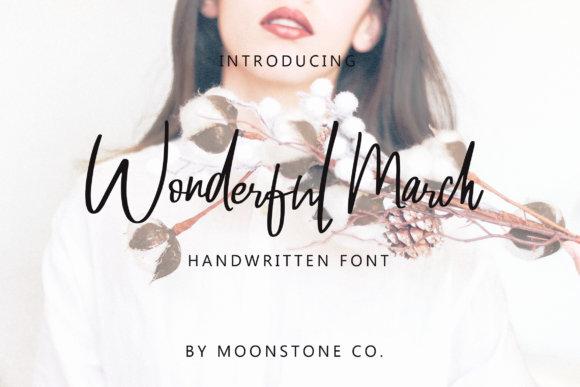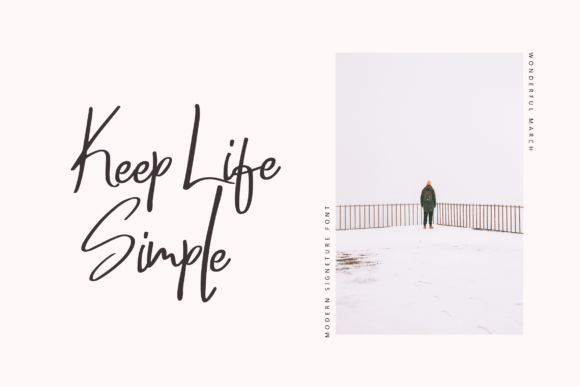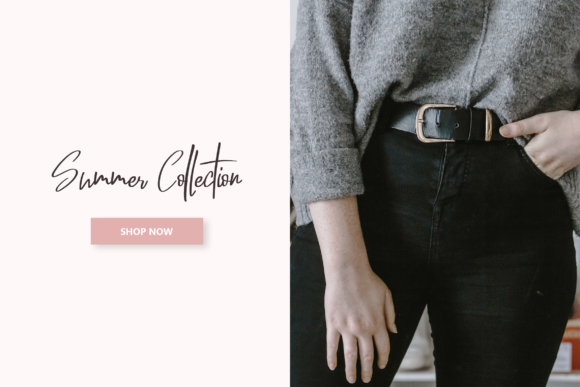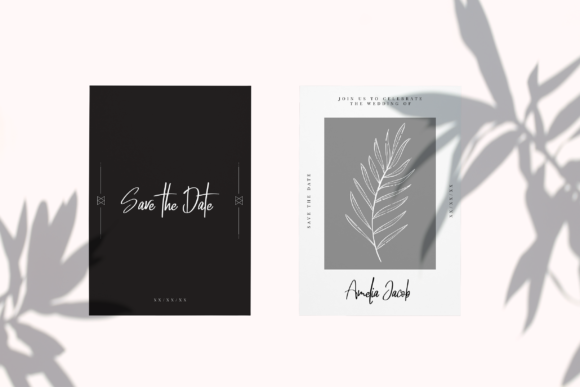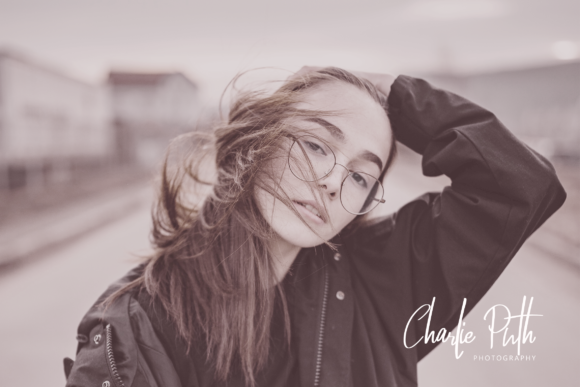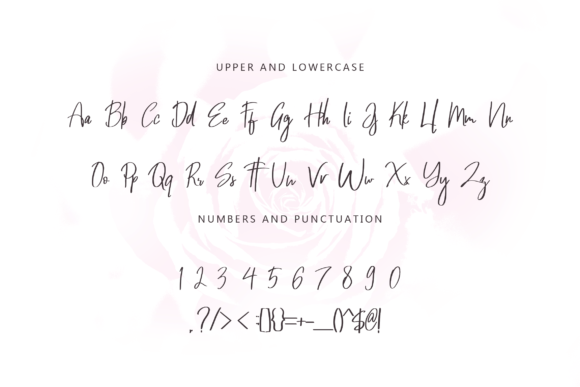
Wonderful March Font
About Wonderful March Font
The Wonderful March is a beautiful handwritten font. It has an elegant and luxurious feel which can be used for logos, upscale packaging, wedding stationery, websites, and any other project which requires a handwritten touch.